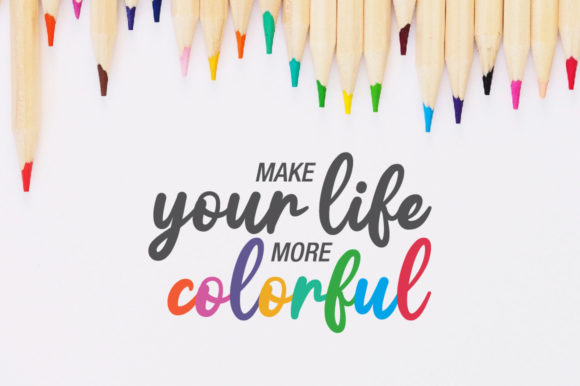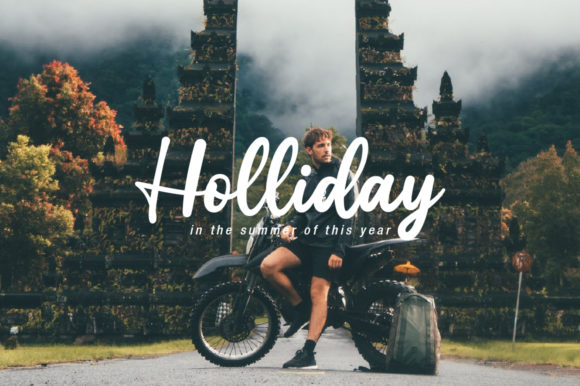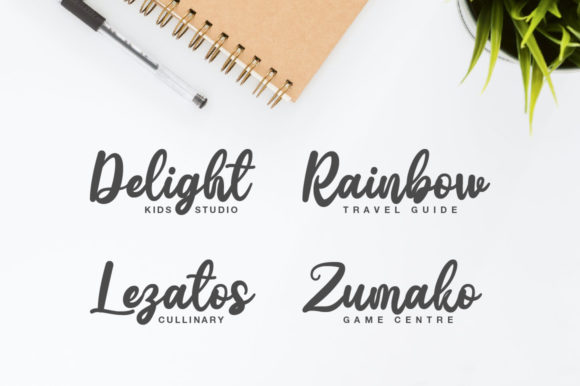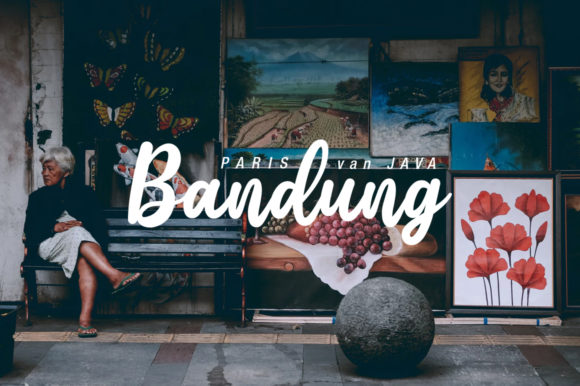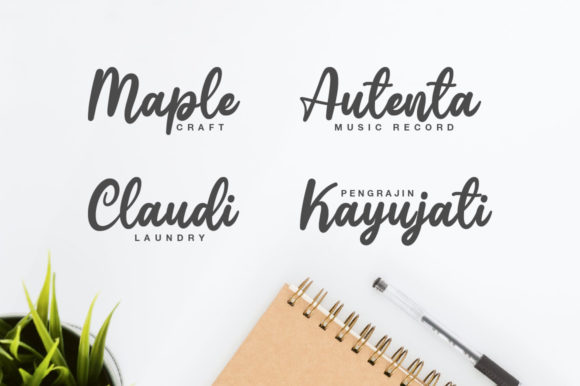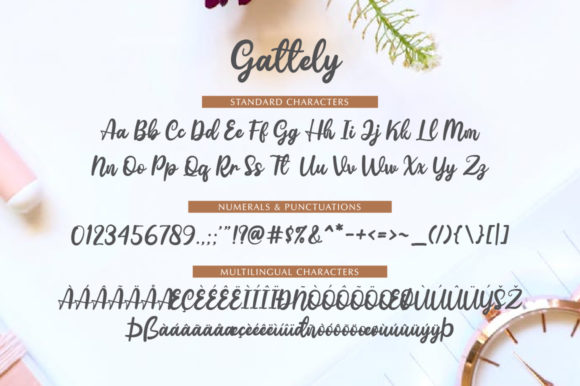
Gattely Font
About Gattely Font
Gattely is a fun and playful handwritten font with a beautiful feel. It will add a personal touch to any design project!